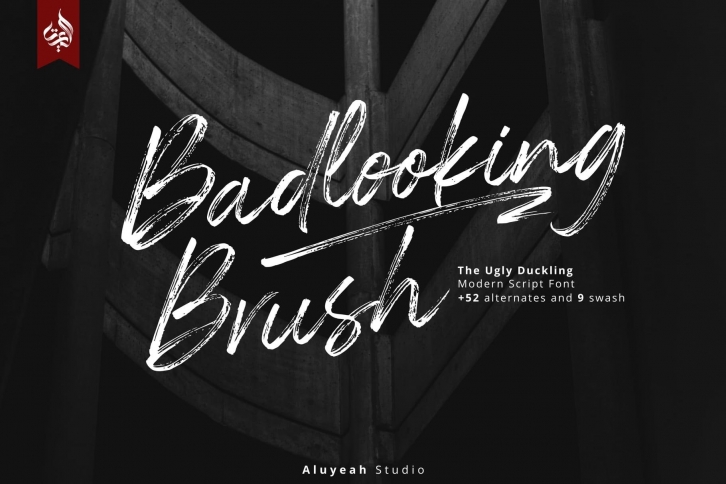
Badlooking Brush is a beautiful font that was designed by Aluyeah Studio. It's a great choice for designers and creatives who need such a font. It was released on August 10, 2021 and the file size is 21.1 MB. Badlooking Brush may give a more youthful, expressive and casual look to your project. It is a very beautiful, refined, elegant, and high-quality font.